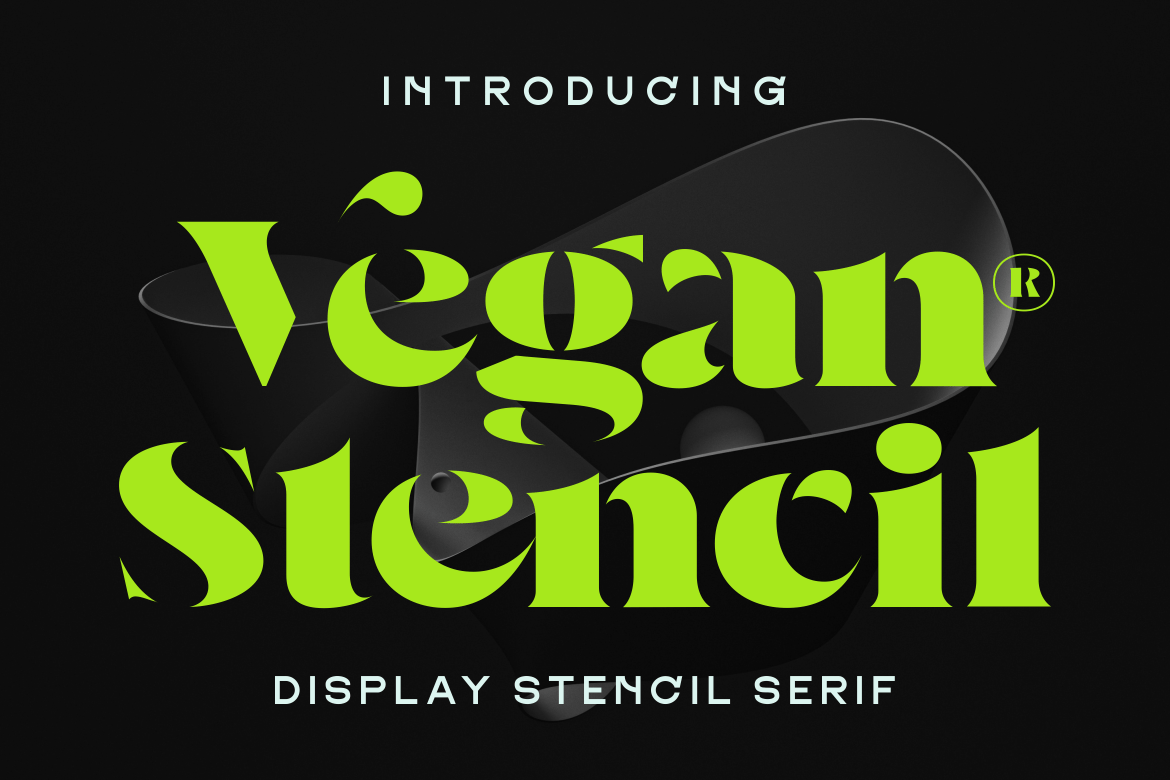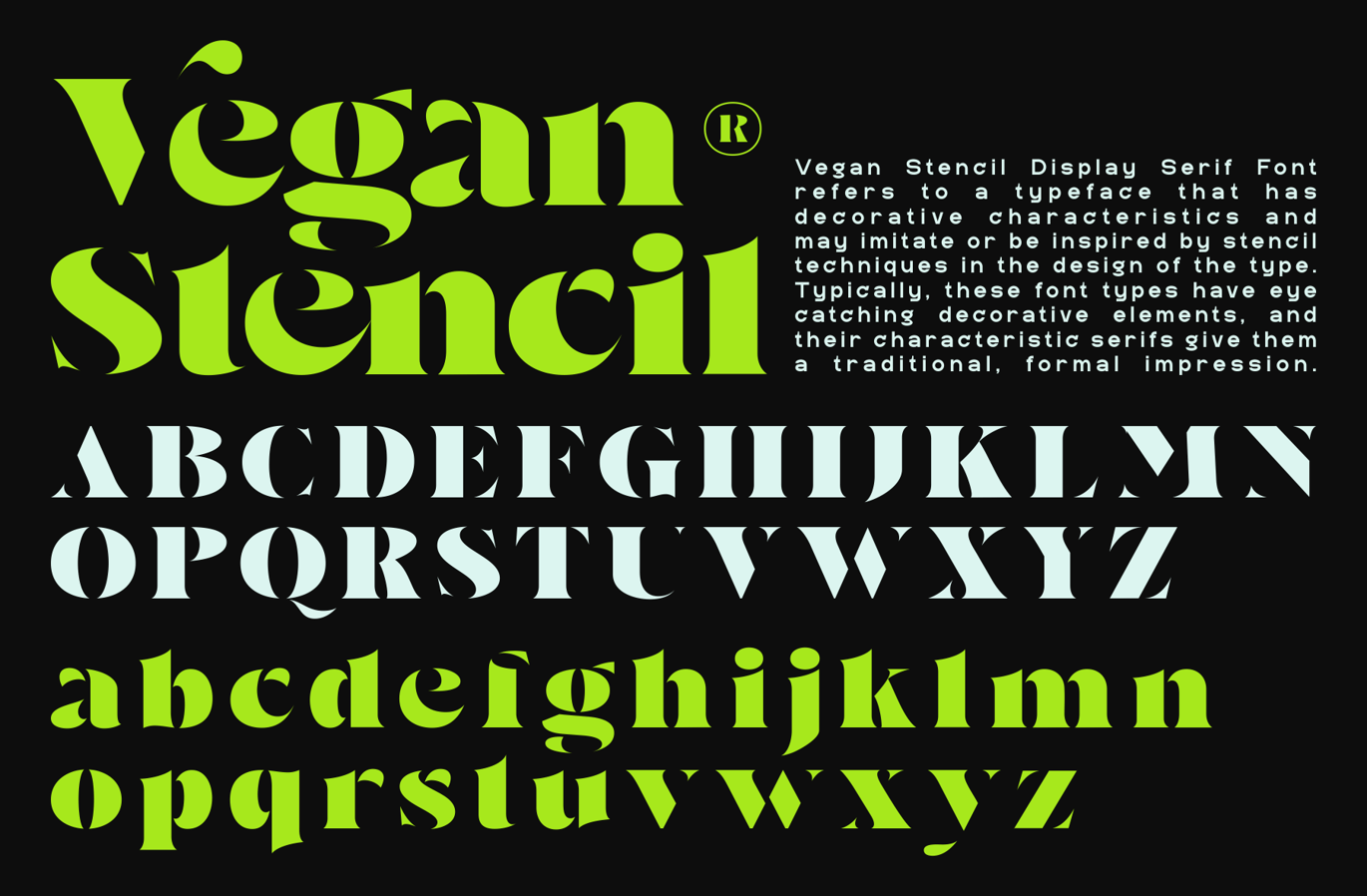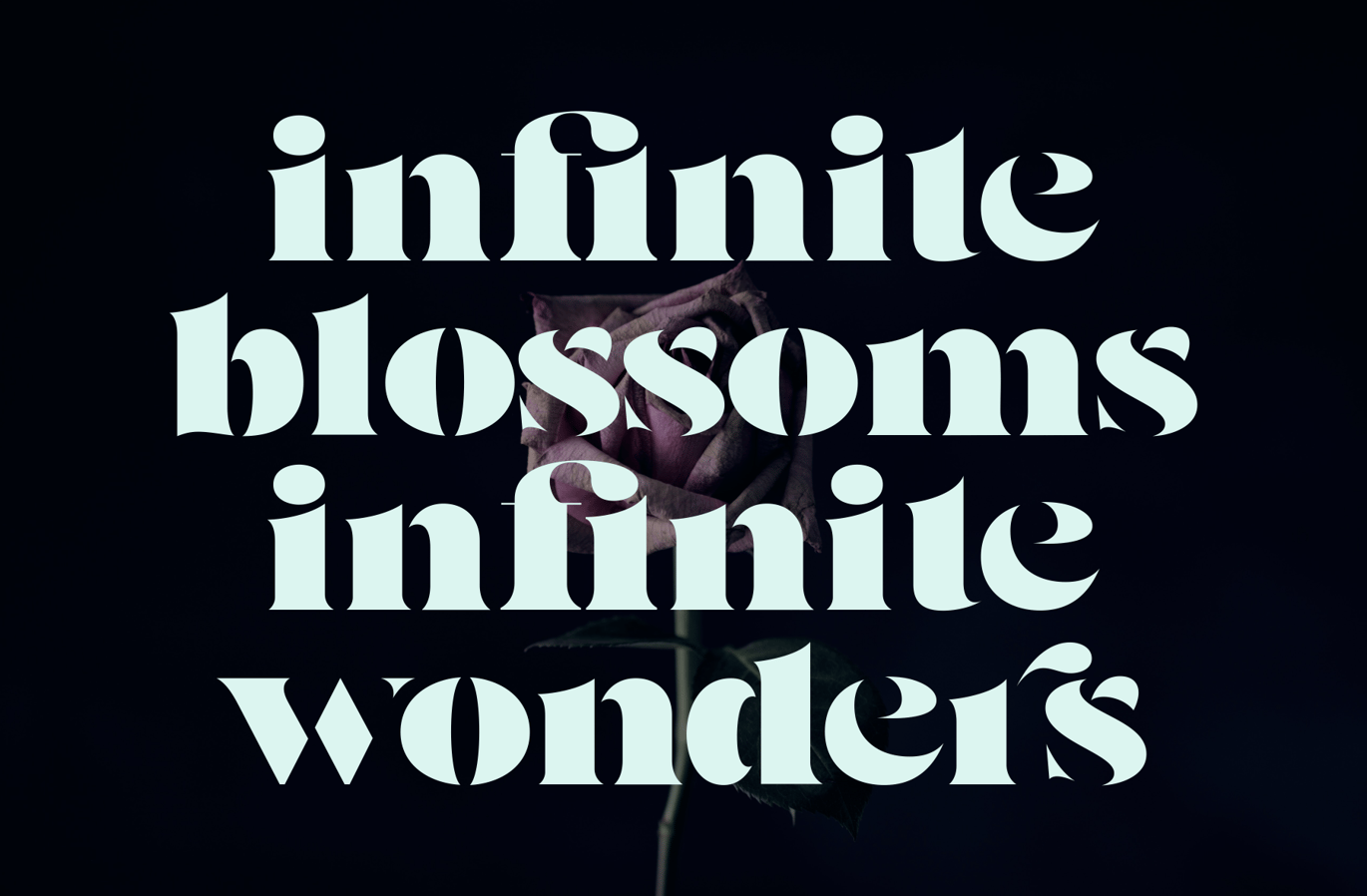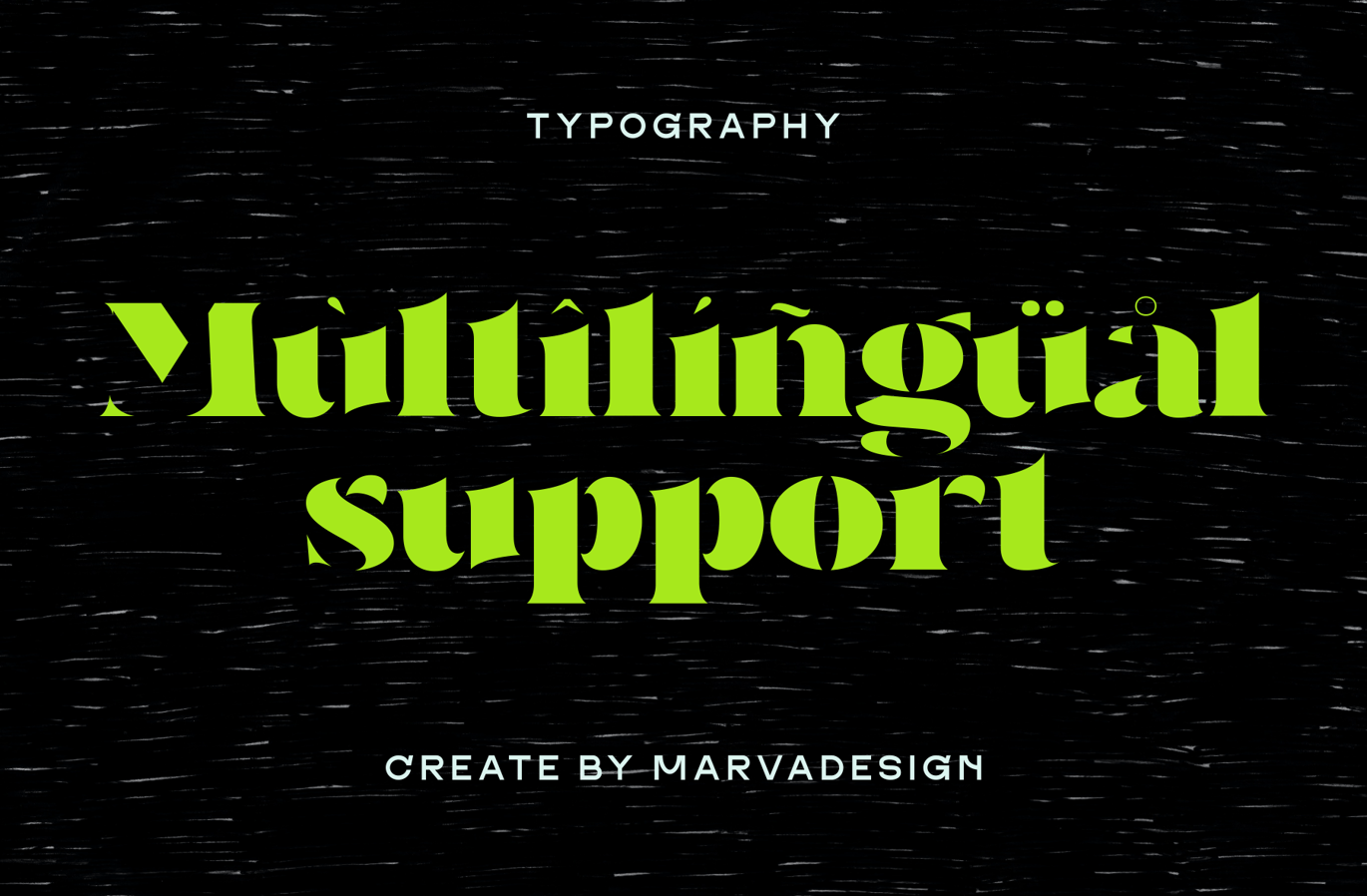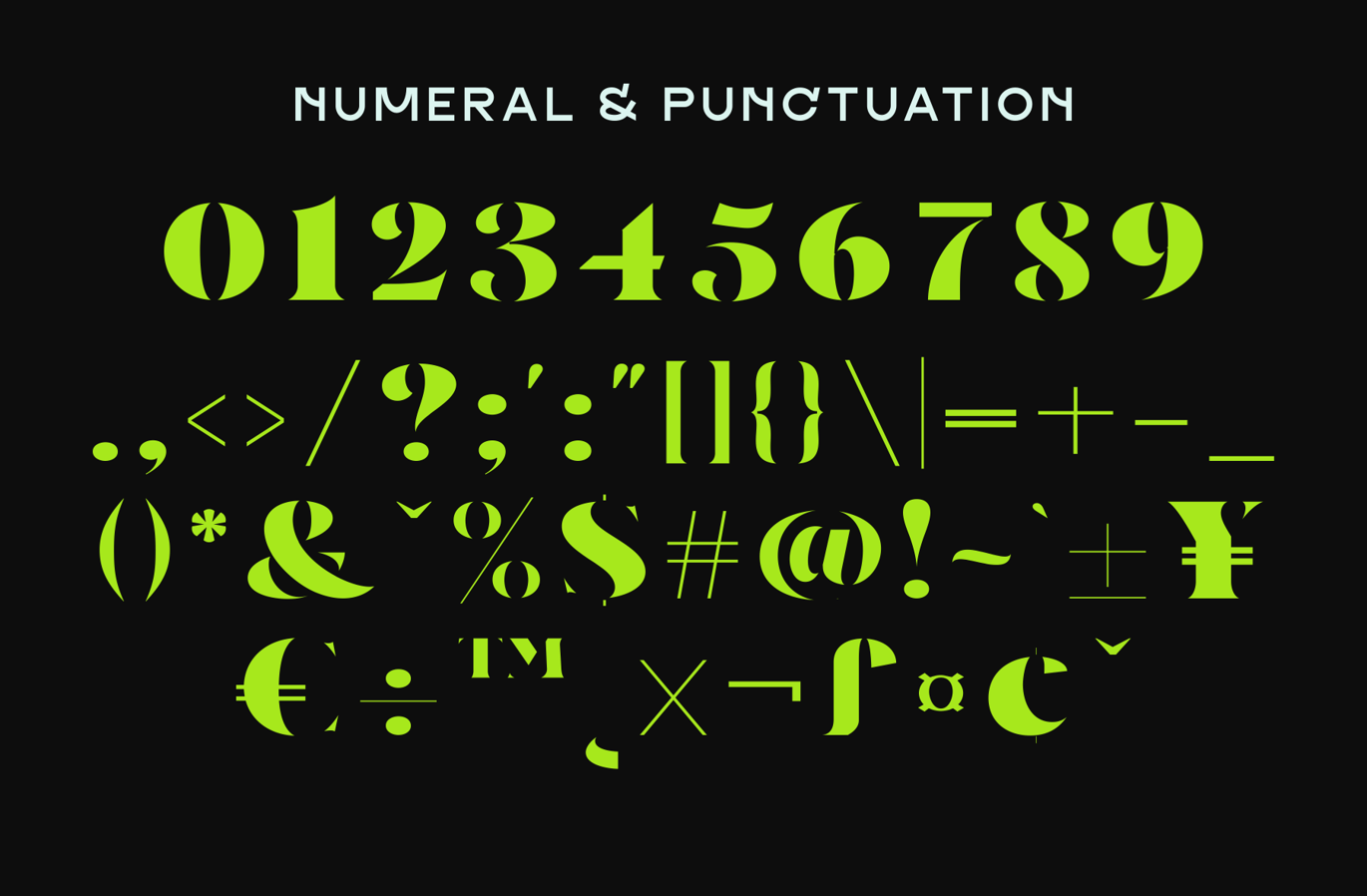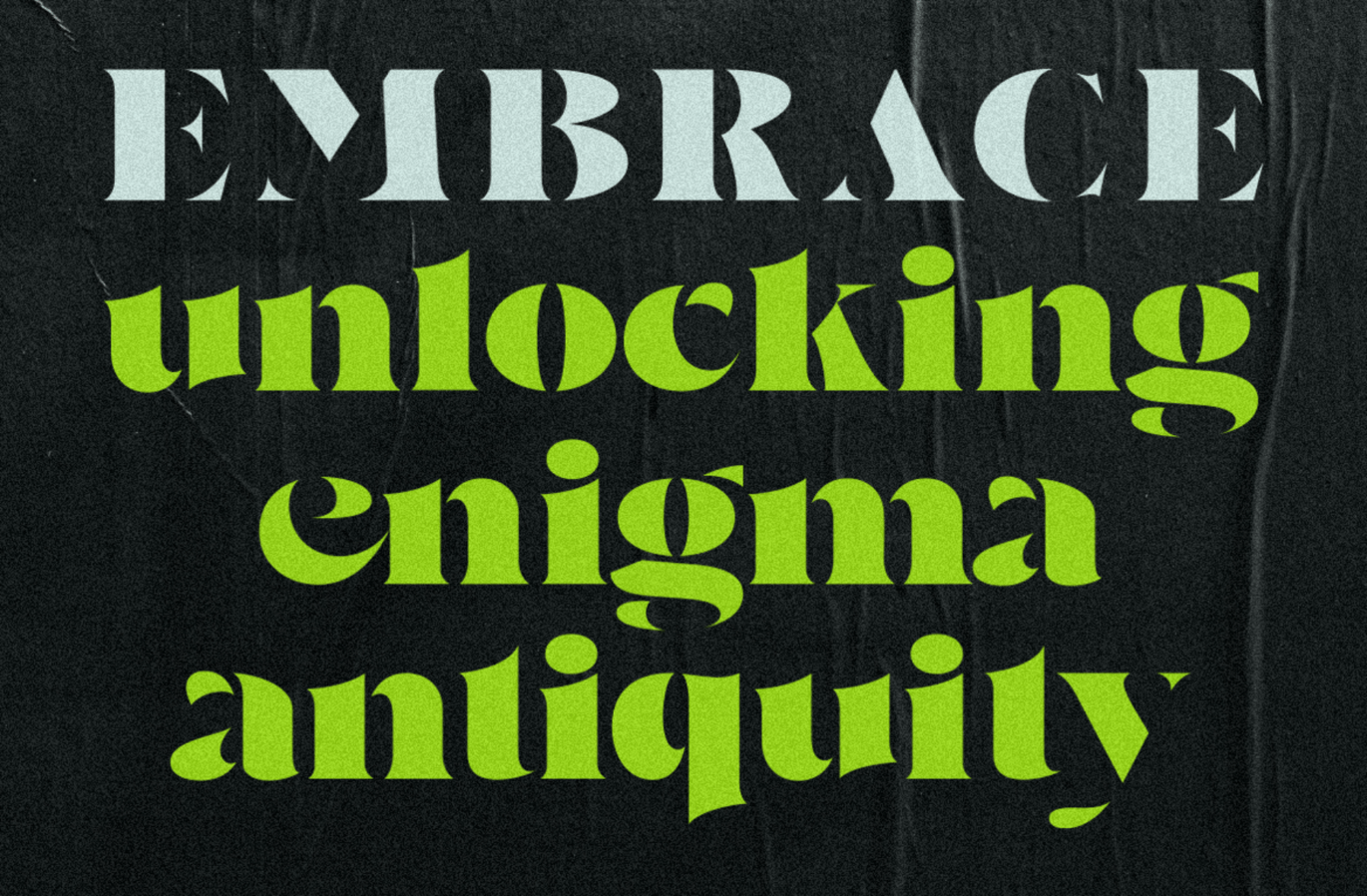
Vegan – A Display Stencil Font
Introducing our new product Vegan Font – Modern Font
Vegan Font – Modern Font is a bold and authentic display font. The font is suitable for any branding project like logo, Template Design, Product and many more. outstanding in a wide range of contexts.